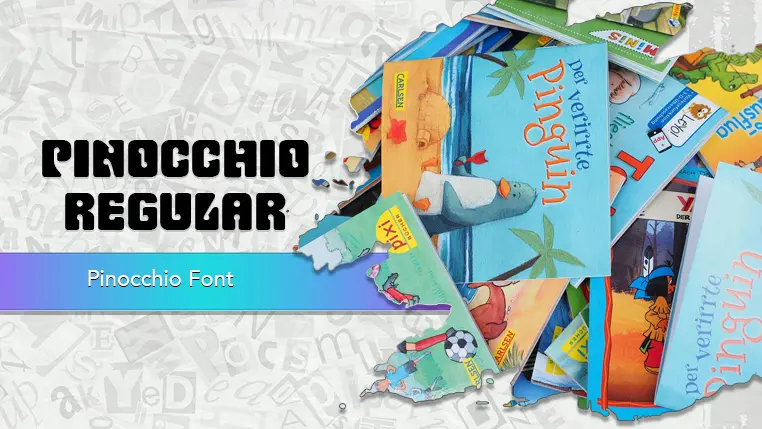
The Pinocchio font family may be ideal for you if you enjoy working on an artistic design project. The lively, expressive look of this typeface, which was created by Typographer Mediengestaltung, makes it ideal for Children's Books and Media, Retro-themed Designs, Playful Branding and Logos, Posters and Flyers and Party Invitations and Decorations. and other light-hearted visual projects.
Regular are the one primary font styles of the Pinocchio font family. You may build dynamic, visually appealing text layouts with the distinct flair that each style offers. With crisp, readable lines and a relaxed tone.